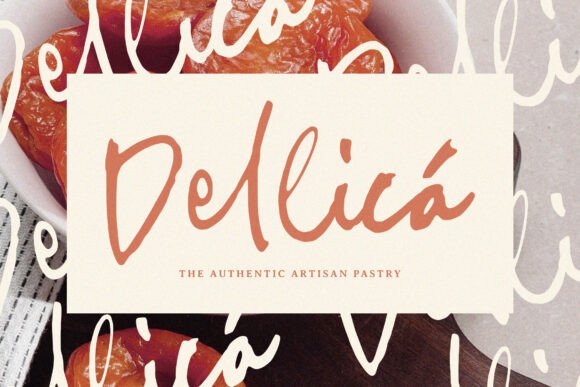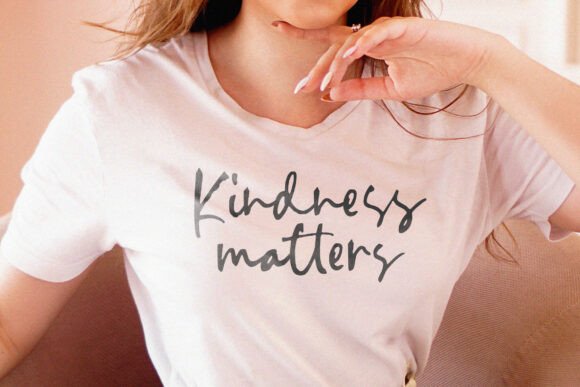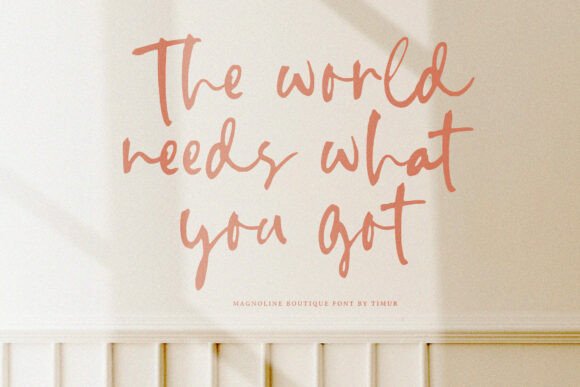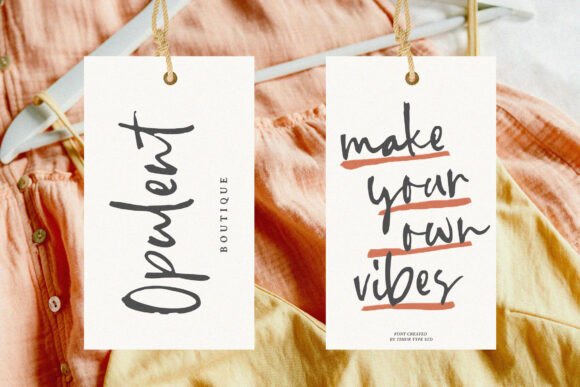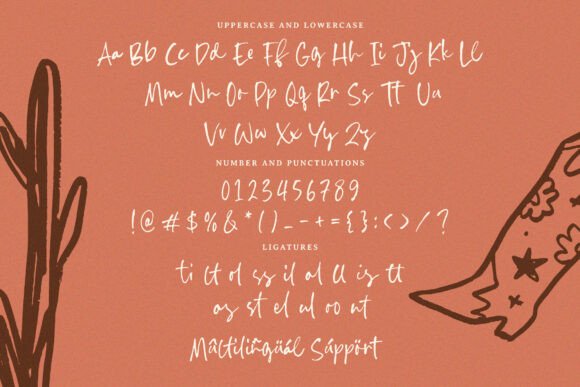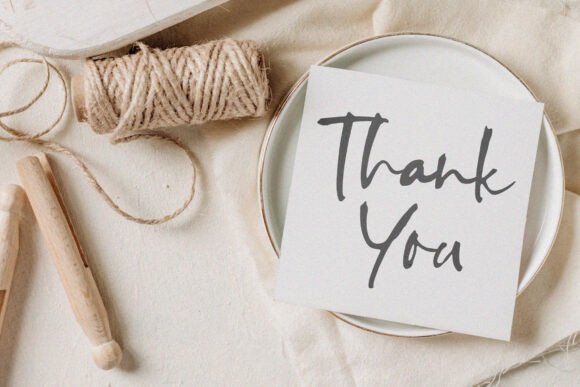
Introduction to Magnoline Boutique Font
Magnoline Boutique is a charming handwritten font with a raw and organic feel, perfect for adding a touch to your designs.
It features an uneven, rough texture that mimics the imperfections of authentic hand-drawn lettering, making it ideal for projects that demand a natural and artisanal aesthetic .
Key Features of Magnoline Boutique Font
Why Choose Magnoline Boutique Font?
Magnoline Boutique Font offers exceptional quality and versatility, making it a valuable addition to your design toolkit. Whether you’re creating for personal projects or commercial use, Magnoline Boutique Font delivers professional results.